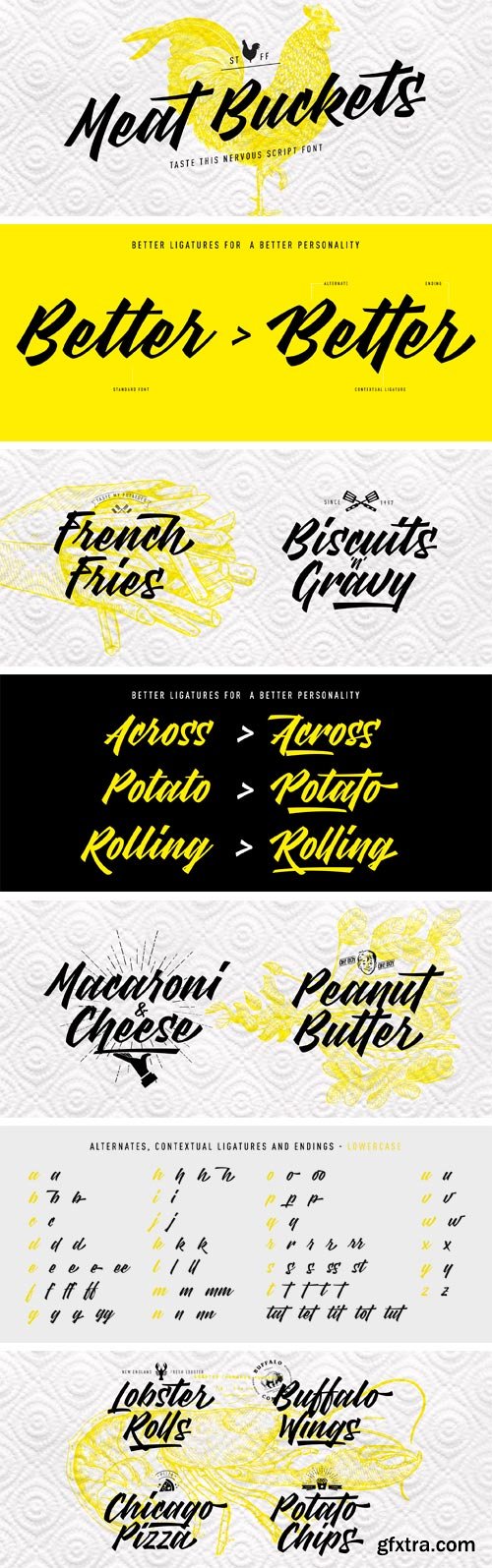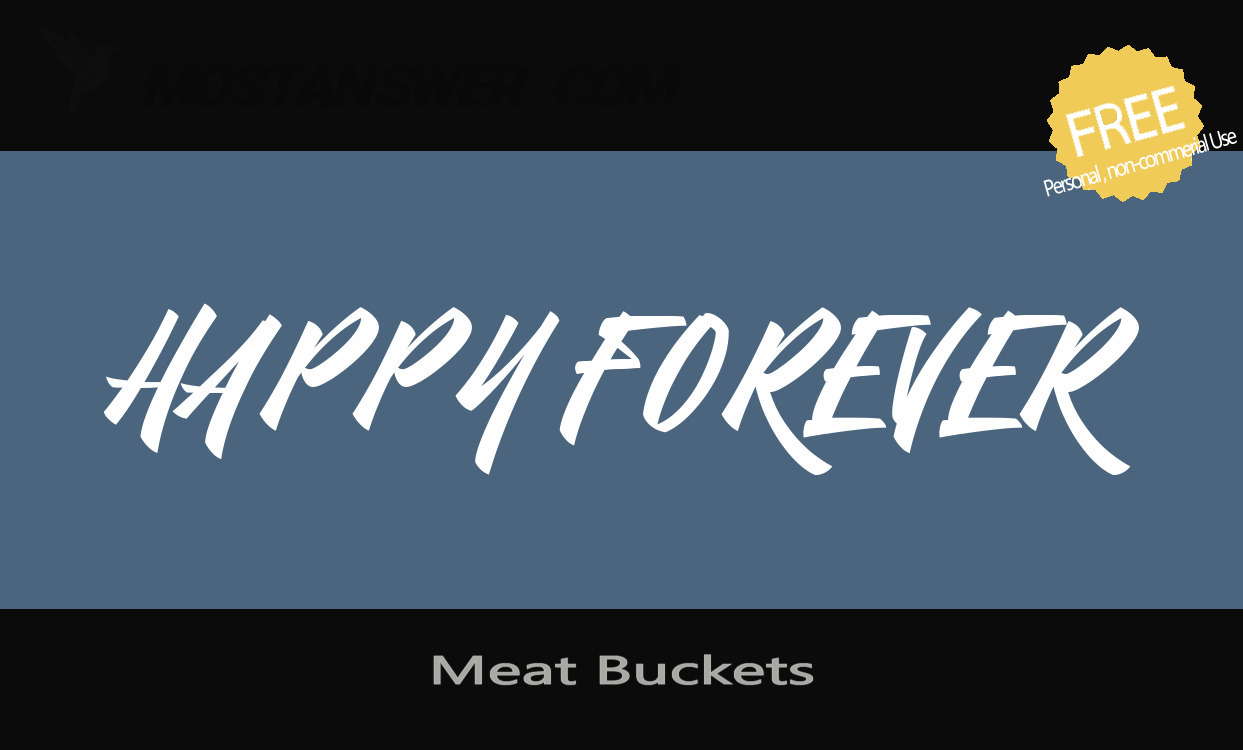
Meat Bucket Font . But if you want to get a commercial license, it’s available at: Meat buckets is a script type font that can be used on any device. this font is free for personal use only! hello, and thank you for downloading this font. meat buckets designed and shared by stereotype. This font is free for personal use only! meat buckets font download is available free from fontget. Meat buckets is a nervous script font with a taste of old. ️ this font has been downloaded 600+ times. 84,432 downloads (2 yesterday) free for personal use. Hello, and thank you for. The full commercial version includes a set of 86. download and install the meat buckets font for free from ffonts.net. The full commercial version includes a huge set of 86 alternates, contextual.
Meat Buckets font
Meat Bucket Font The full commercial version includes a set of 86. ️ this font has been downloaded 600+ times. meat buckets font download is available free from fontget. This font is free for personal use only! hello, and thank you for downloading this font. Meat buckets is a script type font that can be used on any device. Hello, and thank you for. The full commercial version includes a huge set of 86 alternates, contextual. meat buckets designed and shared by stereotype. this font is free for personal use only! Meat buckets is a nervous script font with a taste of old. But if you want to get a commercial license, it’s available at: 84,432 downloads (2 yesterday) free for personal use. download and install the meat buckets font for free from ffonts.net. The full commercial version includes a set of 86.
Meat Font. Steak on Bone Alphabet. Pork Alphabet. Beef Letters Stock Meat Bucket Font The full commercial version includes a huge set of 86 alternates, contextual. Hello, and thank you for. The full commercial version includes a set of 86. download and install the meat buckets font for free from ffonts.net. ️ this font has been downloaded 600+ times. hello, and thank you for downloading this font. This font is free for. Meat Bucket Font.
Meat Buckets font by StereoType FontRiver Meat Bucket Font download and install the meat buckets font for free from ffonts.net. This font is free for personal use only! But if you want to get a commercial license, it’s available at: The full commercial version includes a set of 86. meat buckets designed and shared by stereotype. Meat buckets is a script type font that can be used. Meat Bucket Font.
Meat font, butcher type, grill typeface, bbq beef letters alphabet Meat Bucket Font ️ this font has been downloaded 600+ times. meat buckets font download is available free from fontget. Meat buckets is a nervous script font with a taste of old. 84,432 downloads (2 yesterday) free for personal use. This font is free for personal use only! hello, and thank you for downloading this font. Hello, and thank you. Meat Bucket Font.
Meat Buckets Font Free Dafont Free Meat Bucket Font hello, and thank you for downloading this font. this font is free for personal use only! The full commercial version includes a set of 86. But if you want to get a commercial license, it’s available at: 84,432 downloads (2 yesterday) free for personal use. This font is free for personal use only! The full commercial version. Meat Bucket Font.
Meat Buckets 30Kg Inacio Refrigeration Meat Bucket Font Meat buckets is a script type font that can be used on any device. Hello, and thank you for. ️ this font has been downloaded 600+ times. download and install the meat buckets font for free from ffonts.net. But if you want to get a commercial license, it’s available at: 84,432 downloads (2 yesterday) free for personal use.. Meat Bucket Font.
Meat Buckets Font UpFonts Meat Bucket Font meat buckets font download is available free from fontget. download and install the meat buckets font for free from ffonts.net. Meat buckets is a script type font that can be used on any device. this font is free for personal use only! Meat buckets is a nervous script font with a taste of old. Hello, and thank. Meat Bucket Font.
Steak House Decorative Meat Font, Alphabet. Realistic Doodle Cartoon Meat Bucket Font this font is free for personal use only! download and install the meat buckets font for free from ffonts.net. This font is free for personal use only! ️ this font has been downloaded 600+ times. Meat buckets is a nervous script font with a taste of old. hello, and thank you for downloading this font. meat. Meat Bucket Font.
Meat Buckets Font Download Meat Bucket Font download and install the meat buckets font for free from ffonts.net. The full commercial version includes a huge set of 86 alternates, contextual. Meat buckets is a nervous script font with a taste of old. But if you want to get a commercial license, it’s available at: 84,432 downloads (2 yesterday) free for personal use. This font is. Meat Bucket Font.